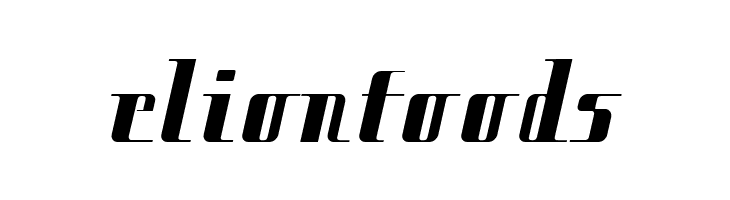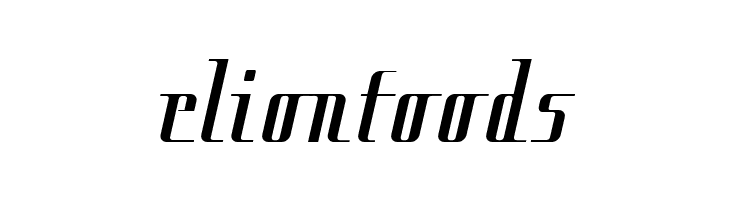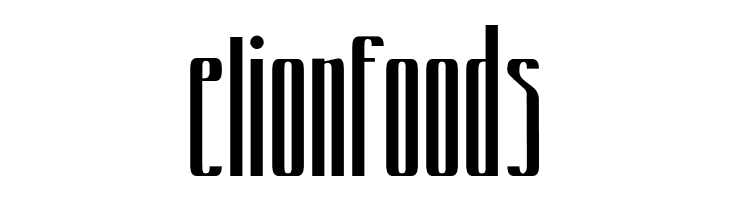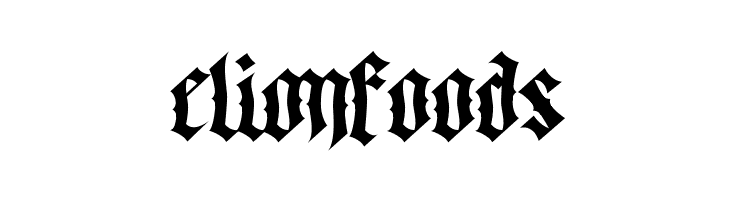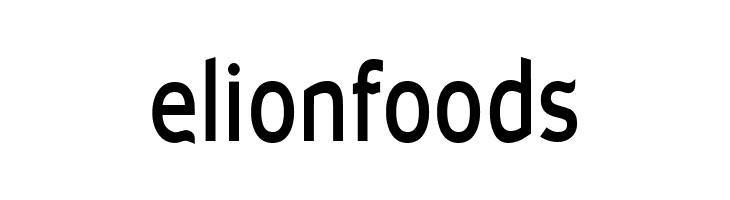
A sleek, modern, condensed, light italic font with tight spacing.
A bold, slanted font with sharp, angular edges and high contrast.
A sleek, modern font with elongated, angular characters and a dynamic appearance.
A decorative, elongated font with tall, narrow letterforms and a modern flair.
A bold, dramatic blackletter font with high contrast and intricate details.
A bold, modern font with geometric influences and excellent readability.
A condensed, light, and italic serif font with a classic and elegant style.
A modern, condensed sans-serif font with a light and airy appearance.
A modern, bold, and condensed font with a clean and assertive design.
A bold, angular Gothic-inspired font with a modern twist.